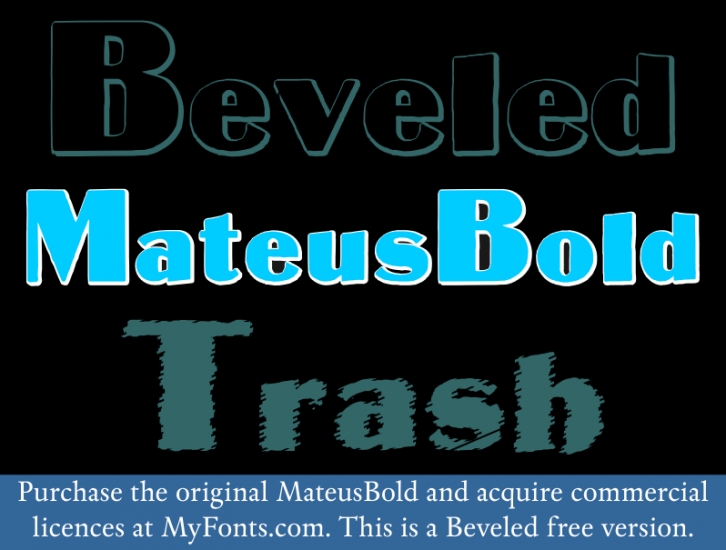
MateusBold, by Intellecta Design
MateusBold is a beveled free version. To purchase the original font and its family of fonts (four differente fonts) and to acquire licences, please, visit: http://new.myfonts.com/fonts/intellecta/mateus-bold/